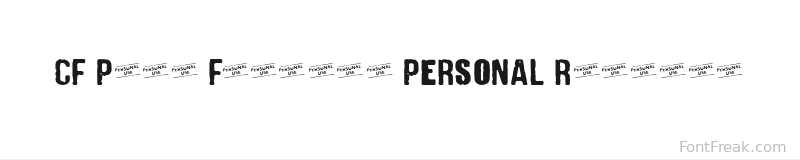
CF Punk Fashion PERSONAL Regular
CF Punk Fashion PERSONAL Regular, created by Cloutierfontes, is a striking display font that embodies the essence of punk aesthetics while maintaining a contemporary appeal. This font falls within the decorative category, designed for those who appreciate bold and unique typographic expressions. Its heavy stroke weight and high contrast between thick and thin lines create a dynamic visual impact, making it an eye-catching choice for various design projects. The spacing is intentionally tight, enhancing the font's edgy character, while the angular forms add a touch of rebellious flair.
This font is ideal for a variety of creative applications. It excels in designing posters for music events or punk-themed gatherings, where a strong visual statement is essential. Additionally, CF Punk Fashion PERSONAL Regular is well-suited for fashion branding, particularly for streetwear labels aiming to convey an urban vibe. It can also enhance the visual appeal of album covers, merchandise, and promotional materials that target a youthful, trend-savvy audience. Other practical uses include social media graphics, where standout typography can grab attention quickly, and restaurant menus that wish to project a unique and modern identity.
Targeted toward graphic designers, small business owners, and content creators, this font offers a fresh alternative to conventional typefaces. Its unique style allows users to make a memorable impression in their projects, standing out in a crowded marketplace.